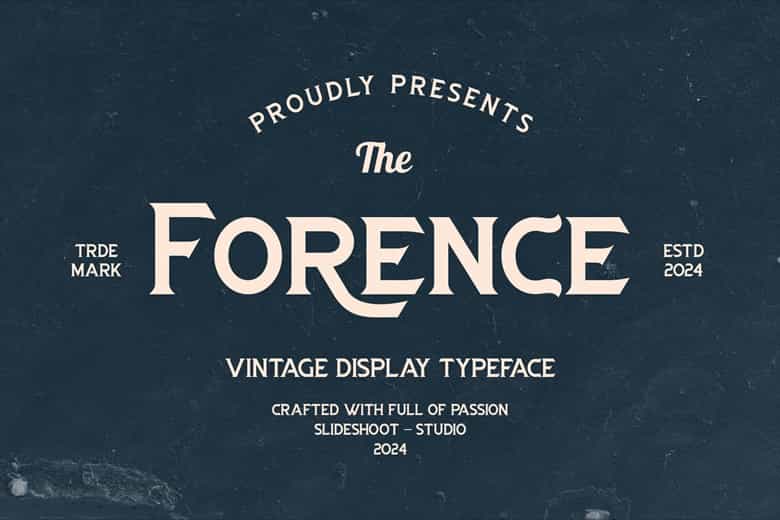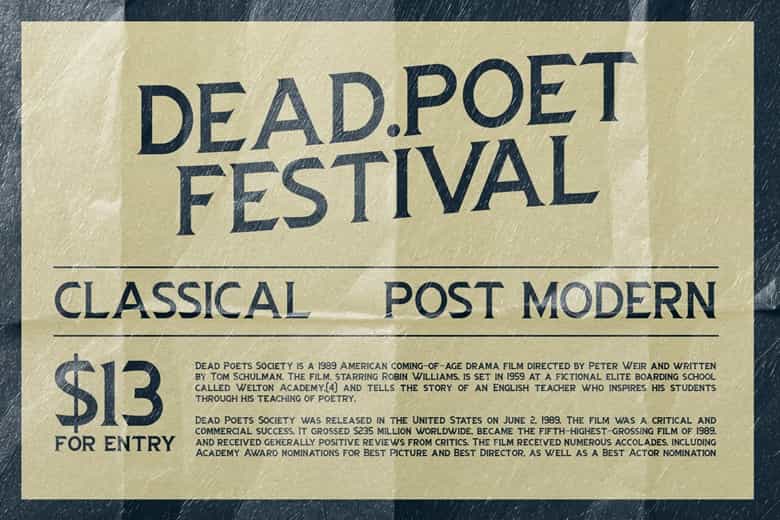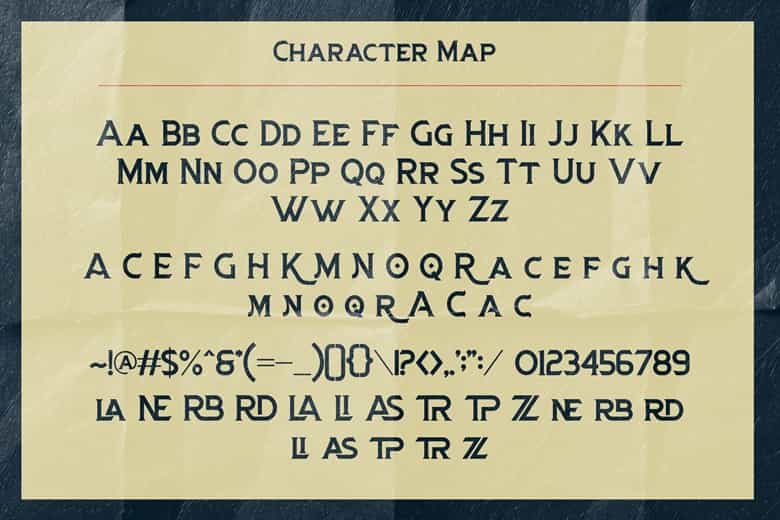
Forence is a vintage display serif font that has many alternates including the first and the last letters of words. This font has the appeal of a well designed traditional serif font with a contemporary twist. This font is suitable for anyone in search of this more old school look and feel, for logos, and any other designs. Striking changes and connections of these glyphs make this font an ideal match for any design work.